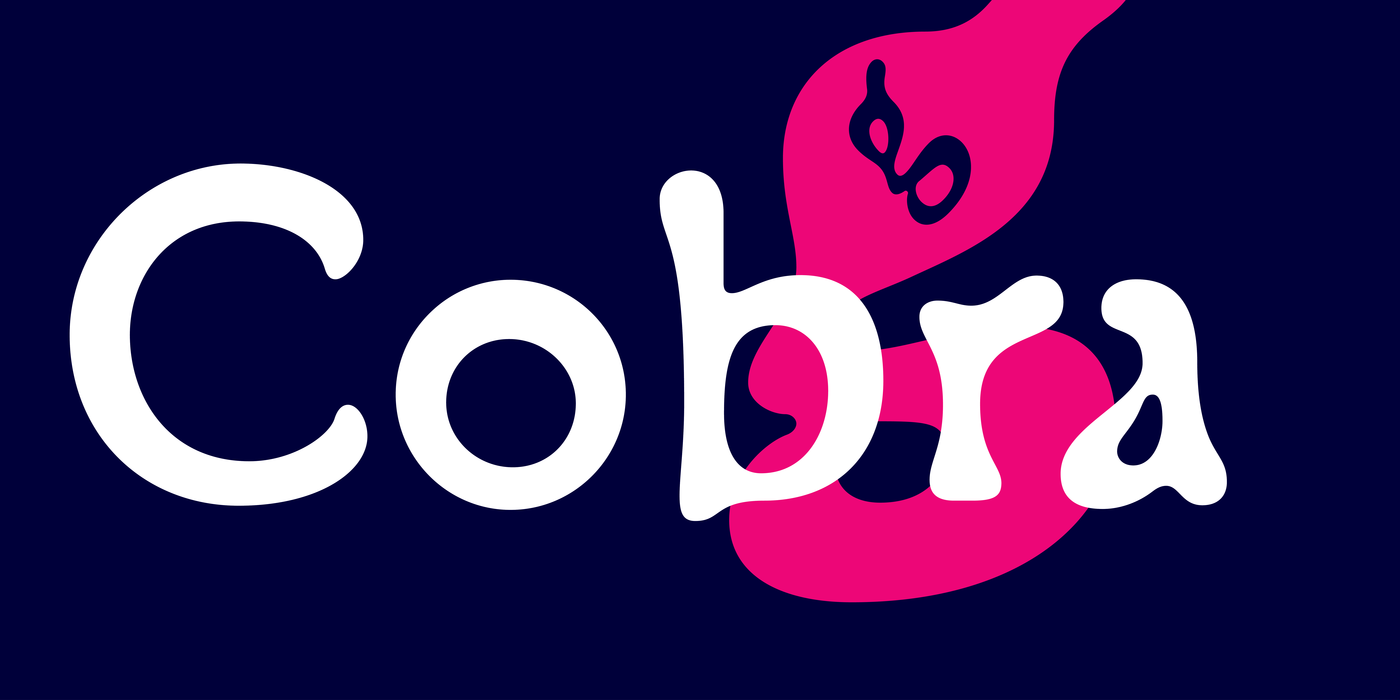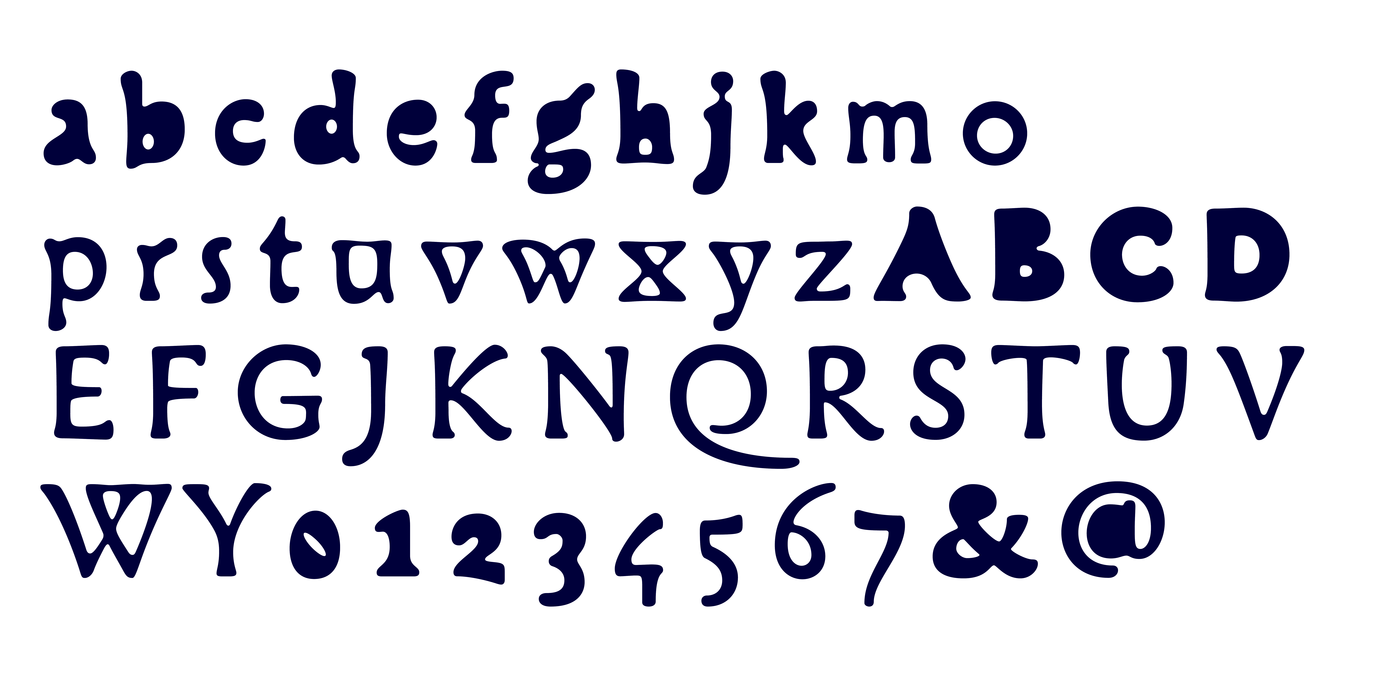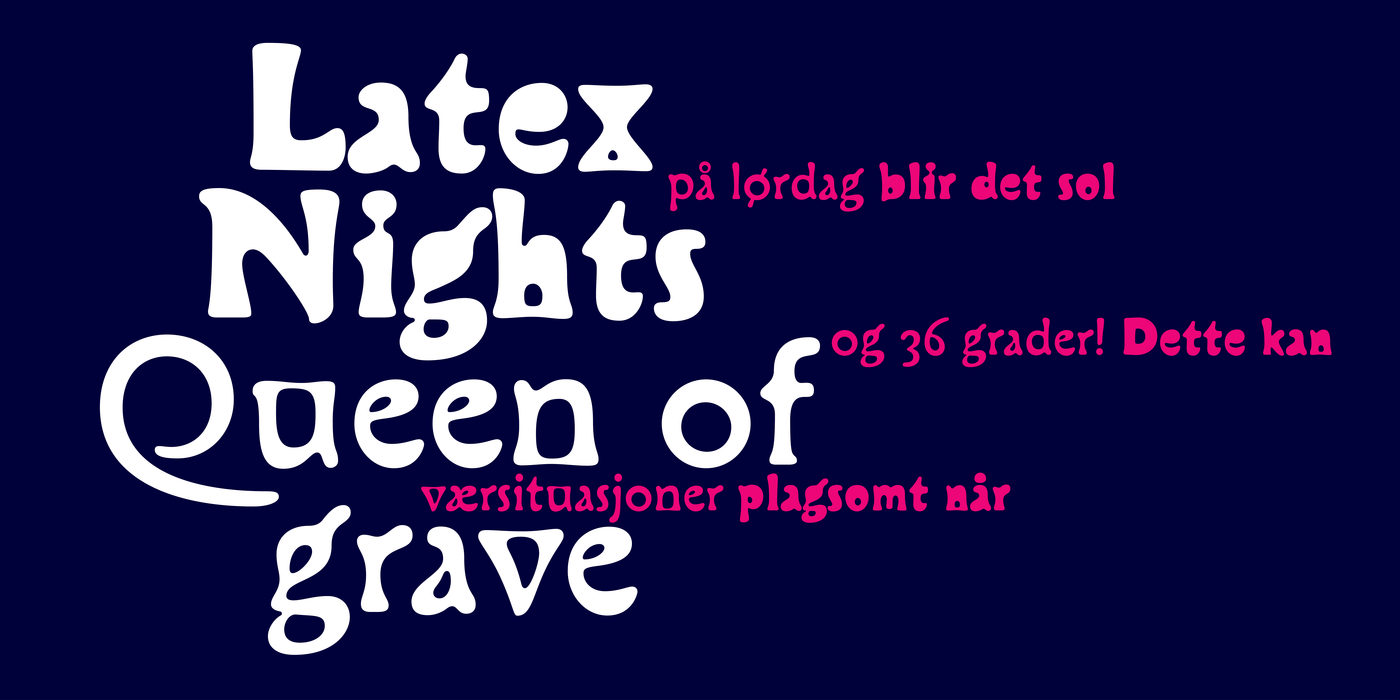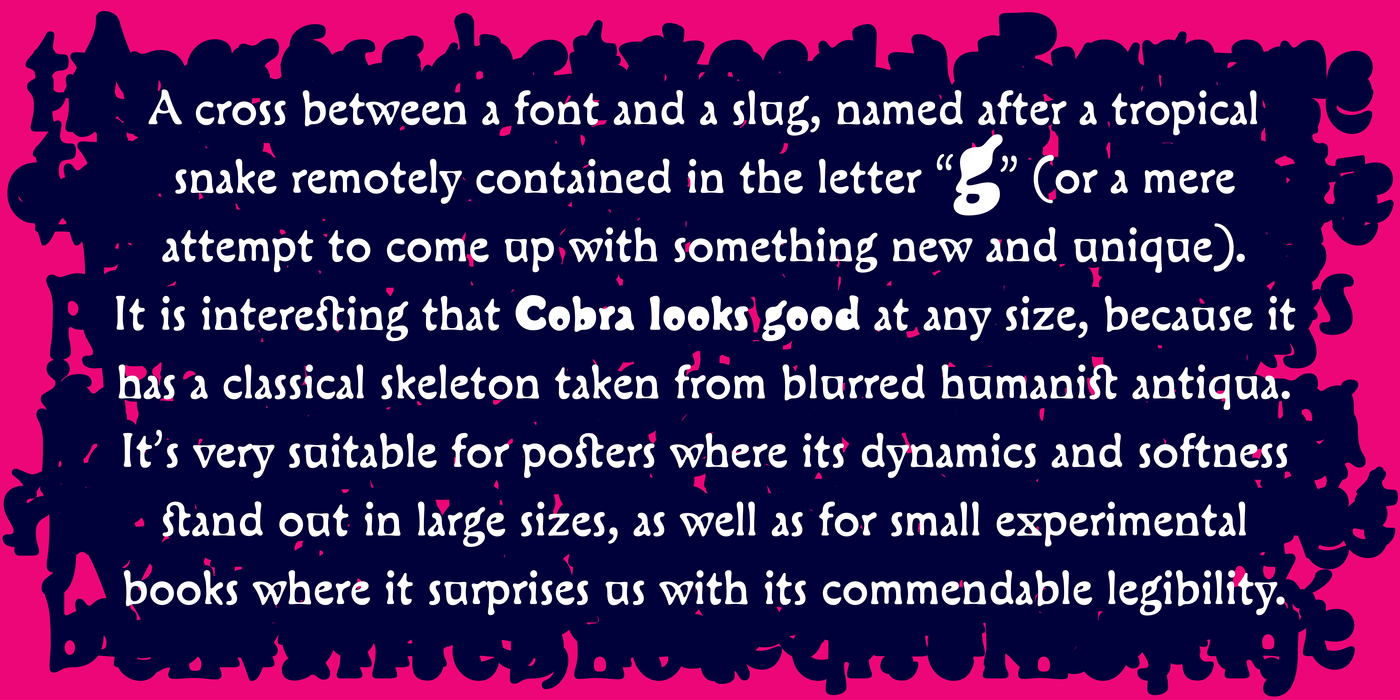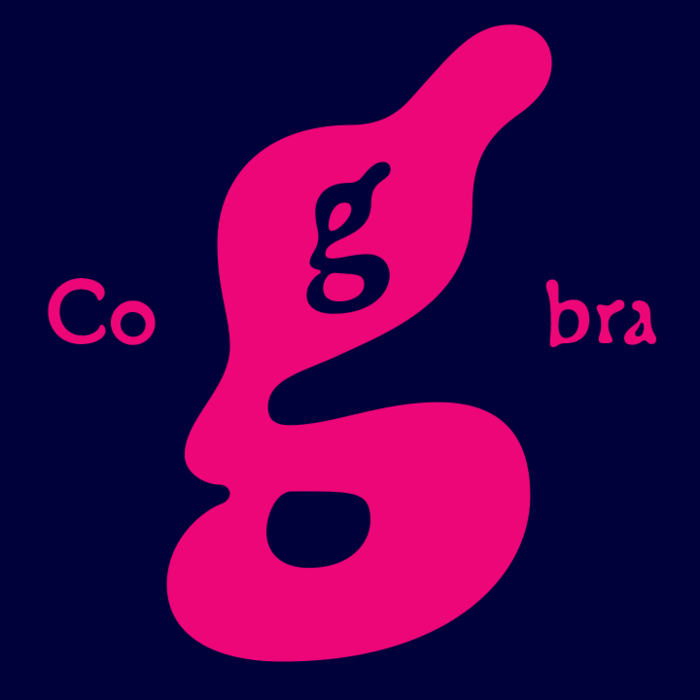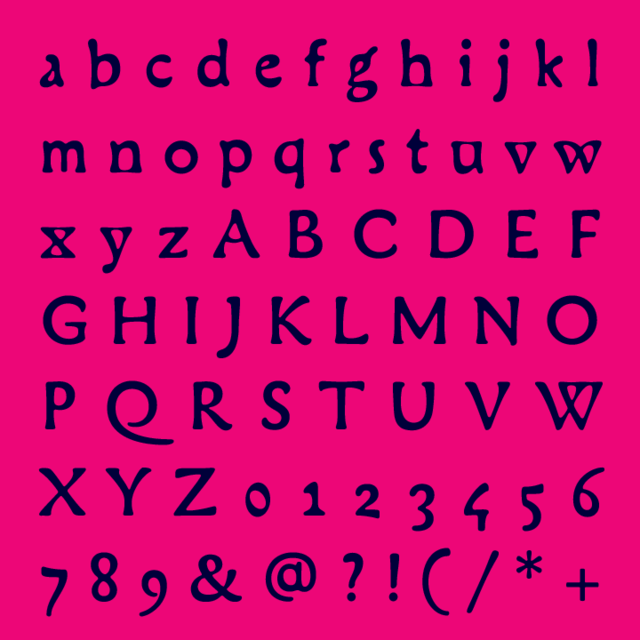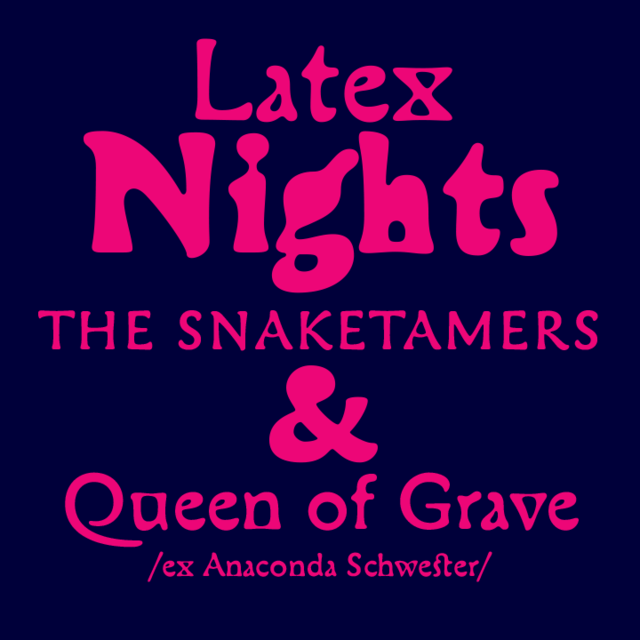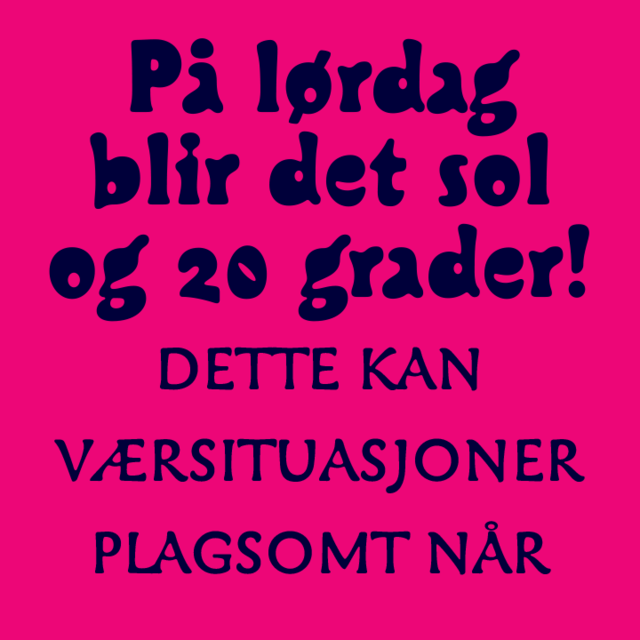
Cobra
by František Štorm
A cross between a Roman type face and a slug, a type face with blurred letters, inspired by a tropical snake remotely contained in the letter "g". Or a mere attempt to come up, at all costs, with something new and original. This type face has a truly avant-garde solution of the enclosed forms; these create horizontal connecting lines which help to hold the line together. It is interesting that Cobra looks good in any size, which cannot be said at all about the majority of respectably-looking letters. This type face is very suitable for posters where its dynamics and softness stand out in large sizes, as well as for small experimental books for bibliophiles where it surprises us with its commendable legibility.
Kříženec antikvy se slimákem, rozostření liter, inspirace tropickým hadem vzdáleně obsaženým v písmenu „g“. Anebo pouhá snaha přicházet za každou cenu s něčím novým, originelním. Tohle písmo má opravdu avantgardní řešení uzavřených tvarů, v nichž vznikají vodorovné spojnice, jež pomáhají držet řádku pohromadě. Zajímavé je, že Cobra vypadá dobře v každé velikosti, což se zdaleka nedá říci o většině seriosních písem. Velmi vhodné na plakáty, kde vynikne dynamika a měkkost ve velkých velikostech, stejně jako na drobné experimentální bibliofilie, kde překvapuje chvalitebnou čitelností.